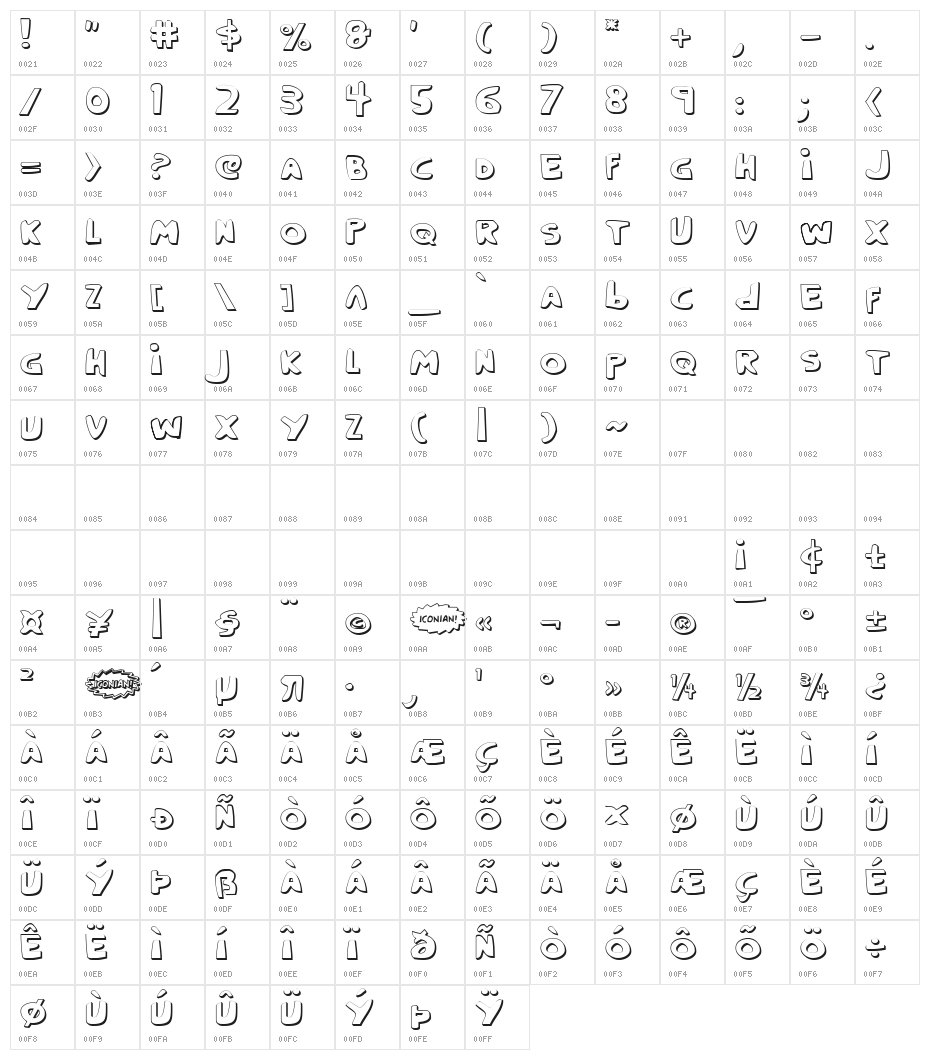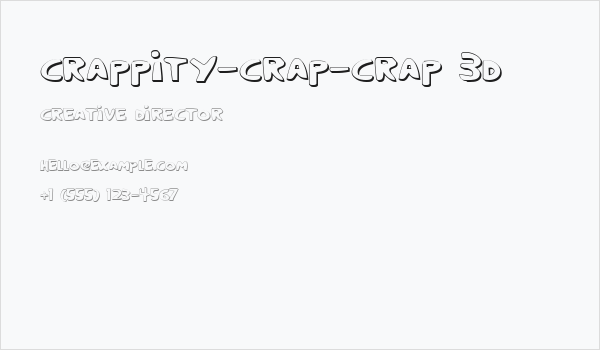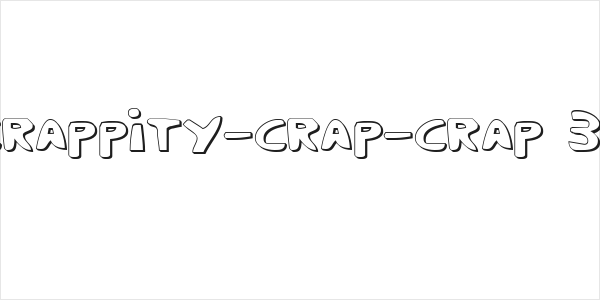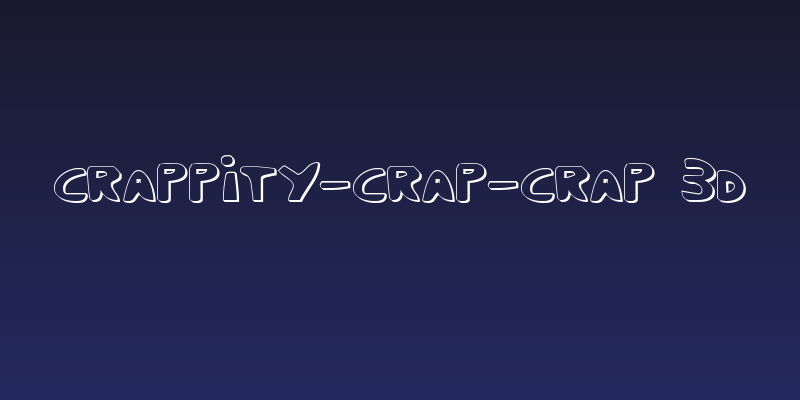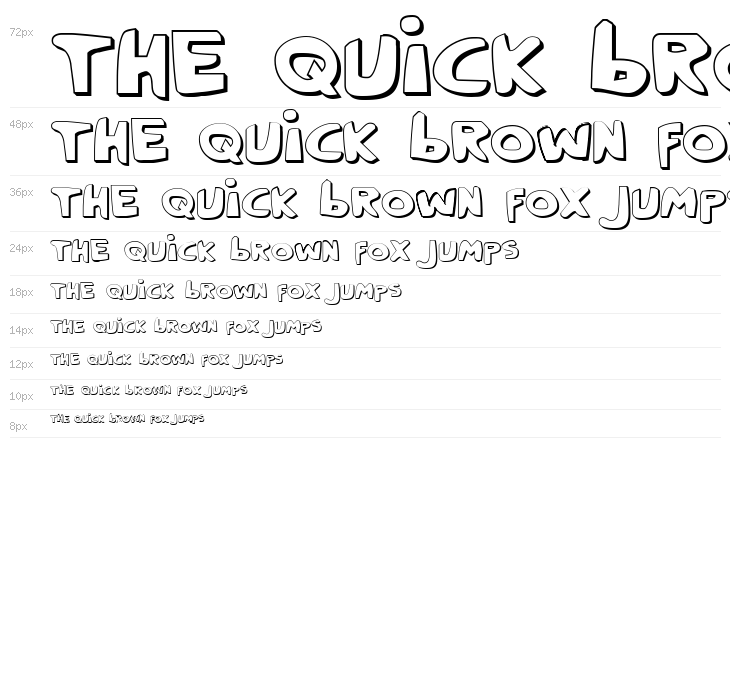
Crappity-Crap-Crap 3D Font
Crappity-Crap-Crap 3D Description
This playful and bold font features a three-dimensional effect that gives each character a unique, eye-catching appearance. The letters are outlined with a thick black border, creating a sense of depth and making them stand out against any background. The style is informal and fun, with a slightly irregular shape that adds to its charm. The font includes both uppercase and lowercase letters, numbers, and a variety of special characters, making it versatile for different uses. Its cartoonish and whimsical nature makes it ideal for projects that require a touch of creativity and humor.
| Proposed Projects | Ideal for children's books, comic strips, playful branding, and party invitations. |